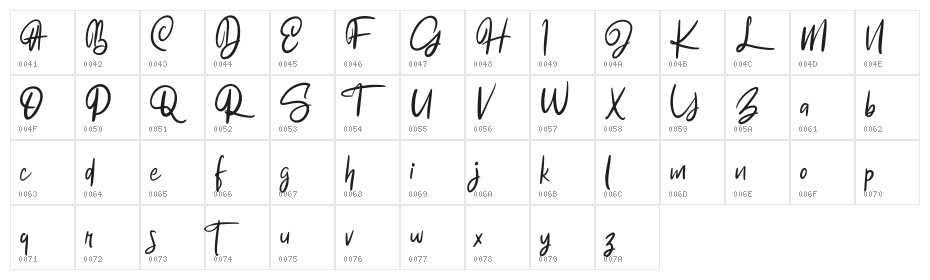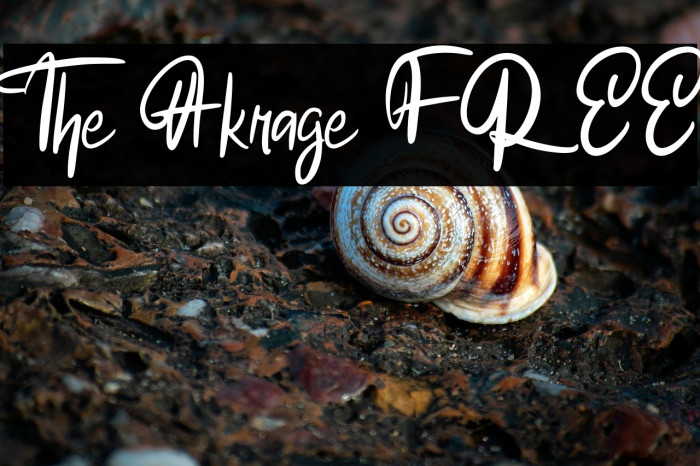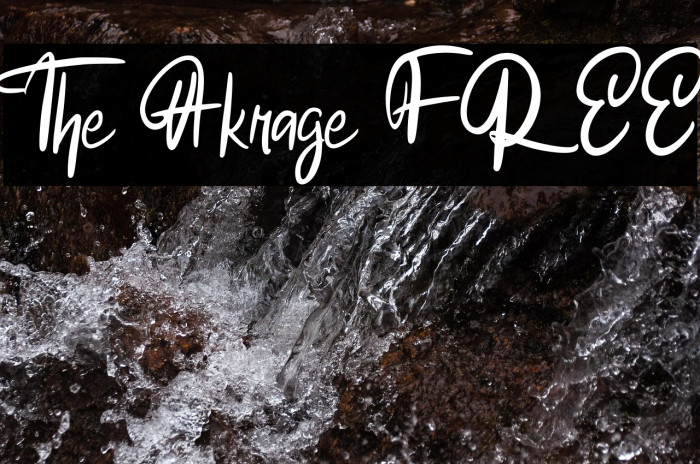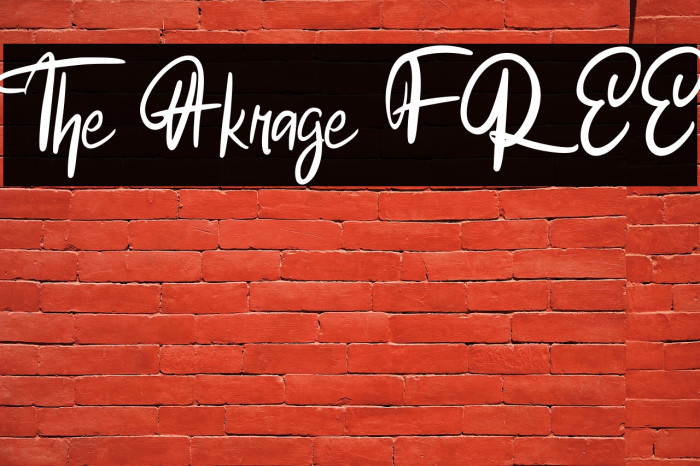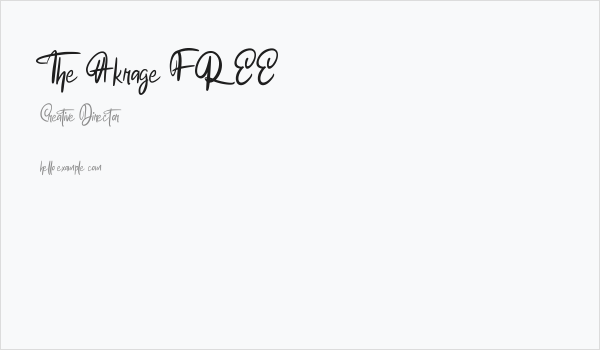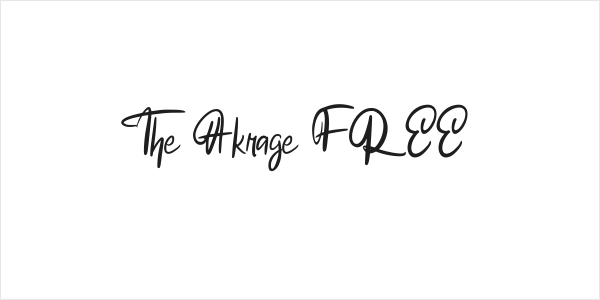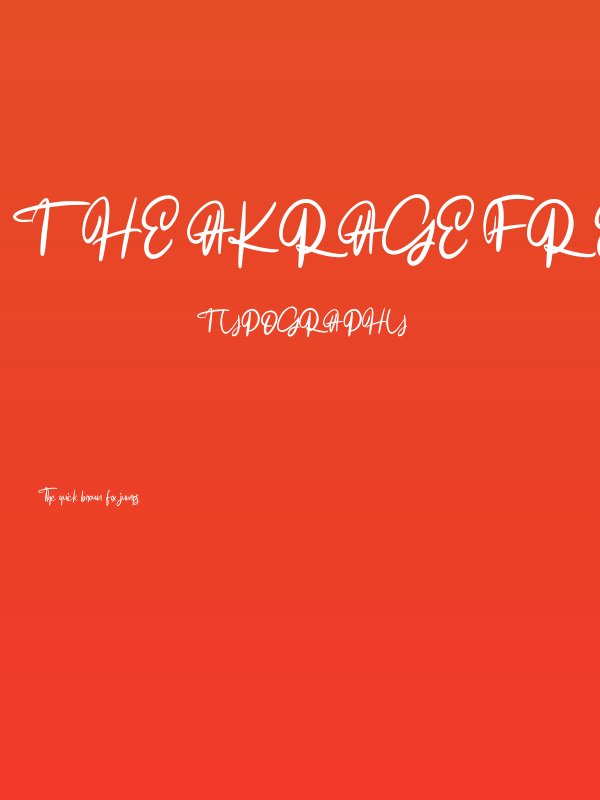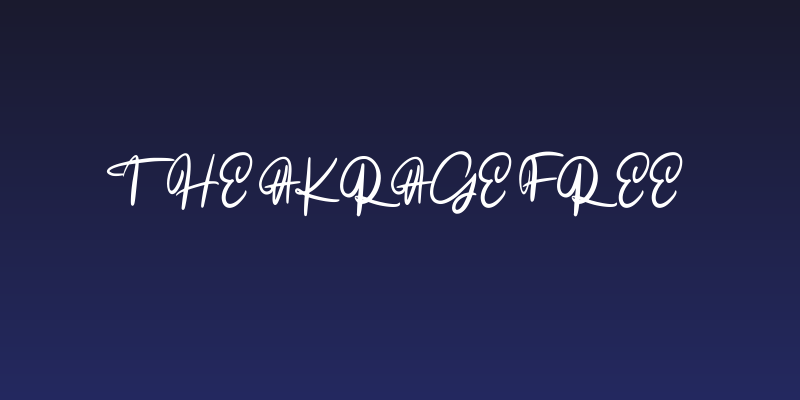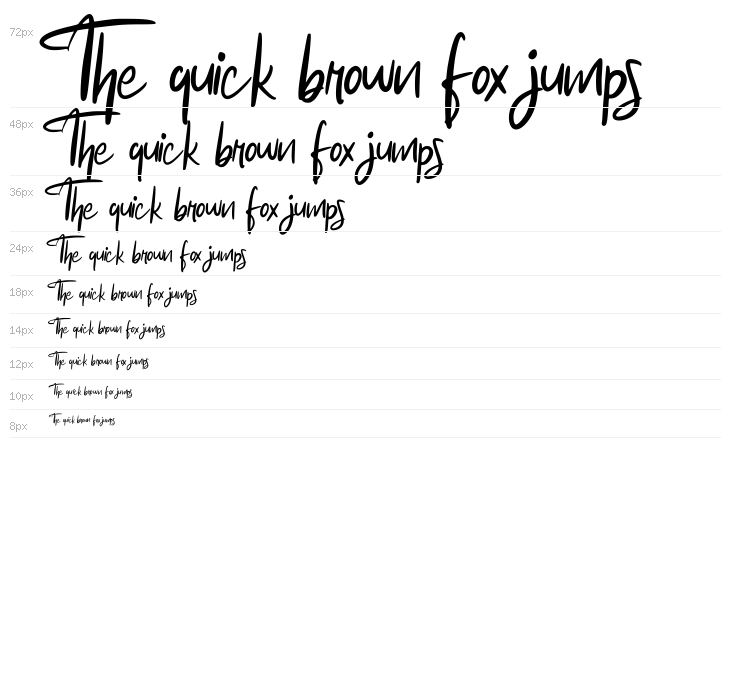
The Akrage FREE Font
The Akrage FREE Description
This font features a lively and expressive handwritten style, characterized by its fluid and dynamic letterforms. The strokes are smooth and slightly irregular, giving it a personal and informal touch. The uppercase and lowercase letters maintain a consistent flow, with some letters featuring playful loops and swashes. The overall appearance is both elegant and casual, making it suitable for projects that require a friendly and approachable aesthetic. The font includes a full set of uppercase and lowercase letters, numbers, and a selection of special characters, ensuring versatility in design applications.
| Use Case | Logos, Headlines, Social media posts |
| Proposed Projects | Ideal for greeting cards, invitations, personal branding, and social media graphics. |